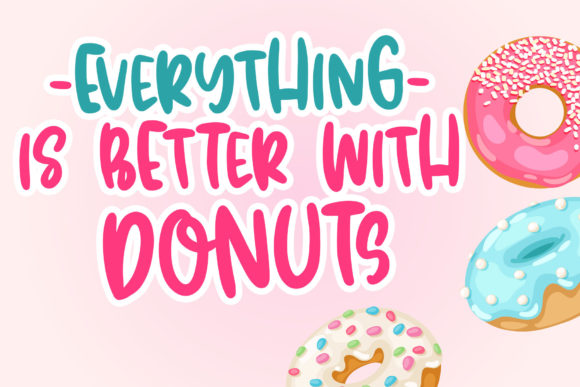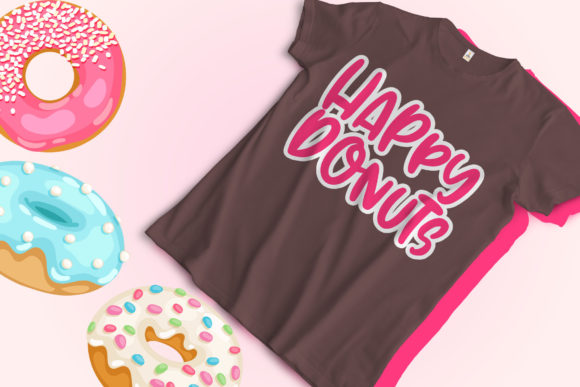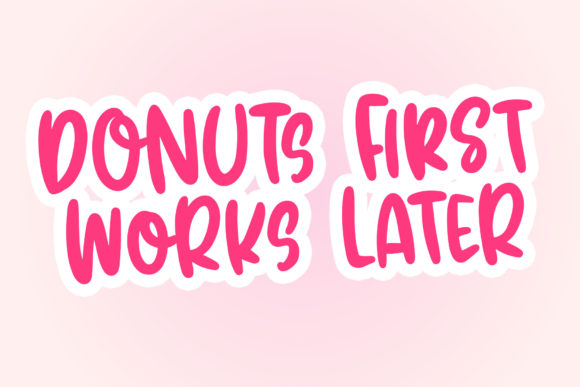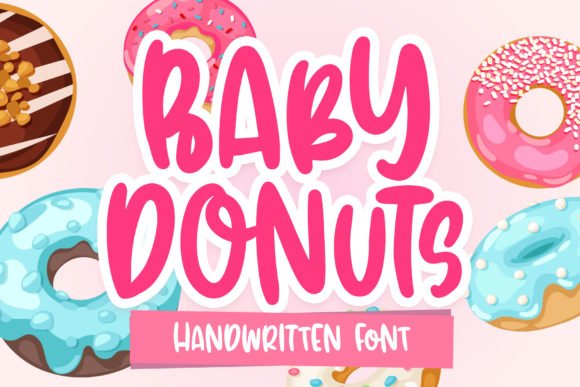
Introduction to Baby Donuts Font
Baby Donuts is a sweet, crafty display font that inspires happiness and playfulness.
Its bold characters will give your creations a unique and naturally attractive flair .